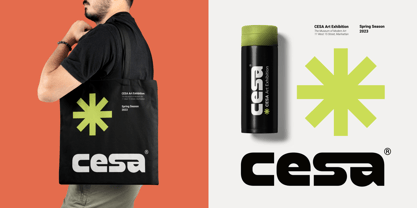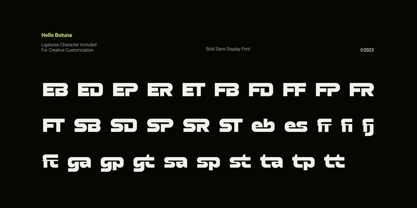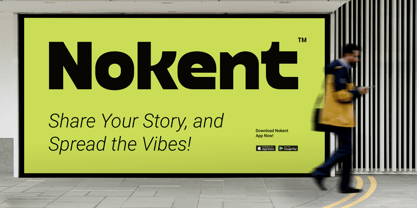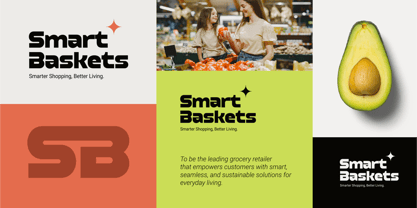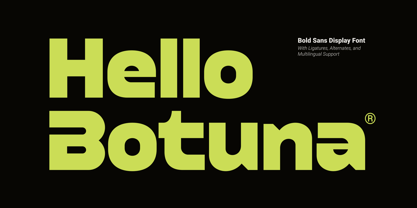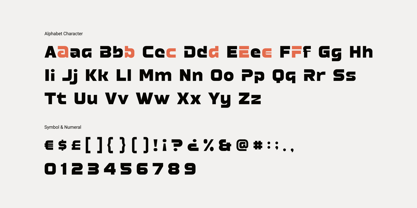
Hello Botuna
by Illustraly
The Hello Botuna Font Family was designed by Faiz Alqurni and published by Illustraly. Hello Botuna contains 1 styles. More about this family
Hello Botuna is a bold sans display font built to make a fearless impact with a modern, futuristic edge. Designed to elevate branding, logos, headlines, and social media graphics, this typeface fuses confident shapes with creative energy for a standout presence in any design.
Its bold, geometric letterforms deliver a powerful, eye-catching look that feels fresh and contemporary, while subtle futuristic influences add a dynamic, forward-thinking twist. Whether you’re designing an attention-grabbing poster or a cutting-edge brand identity, Hello Botuna gives your typography an unmistakable creative flair.
From modern tech branding to editorial layouts and stylish social content, Hello Botuna is made for creators who want their words to stand bold and visionary.
Features:
* Bold sans display font with modern futuristic character
* Uppercase & lowercase letters
* Numerals & punctuation
Make your words stand out — with Hello Botuna.
Perfect for: Branding • Logos • Posters • Editorial • Social Media • Packaging
Designers: Faiz Alqurni
Foundry: Illustraly